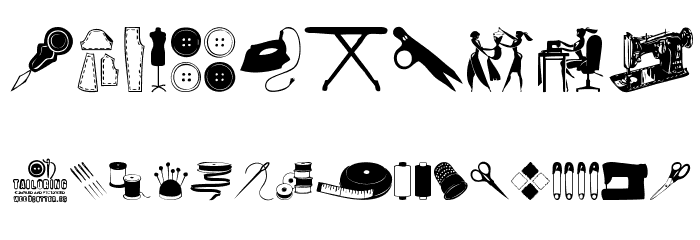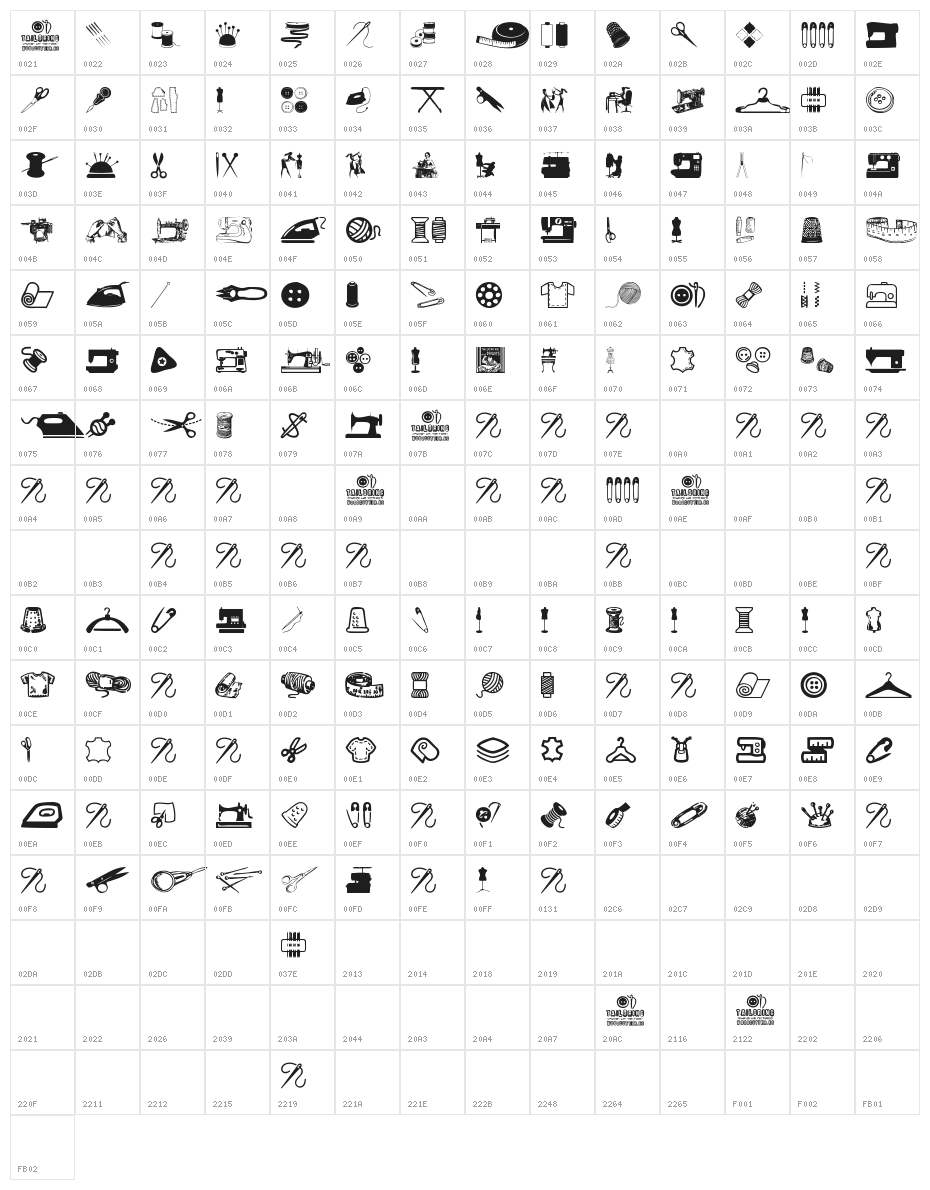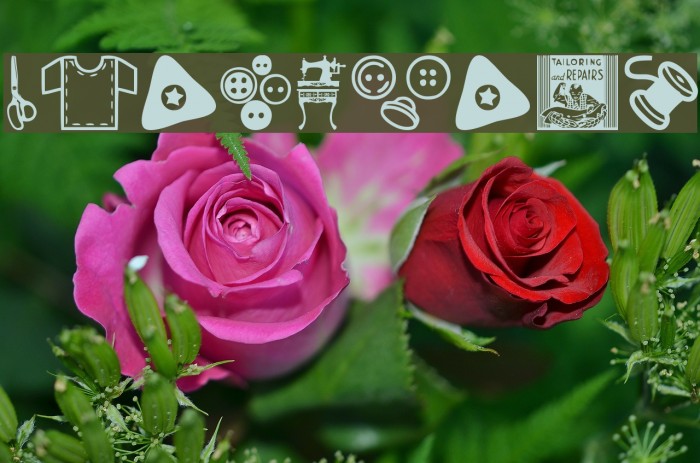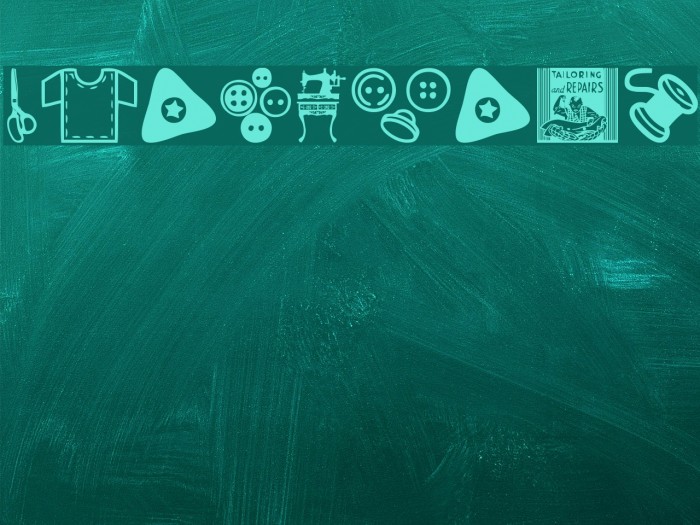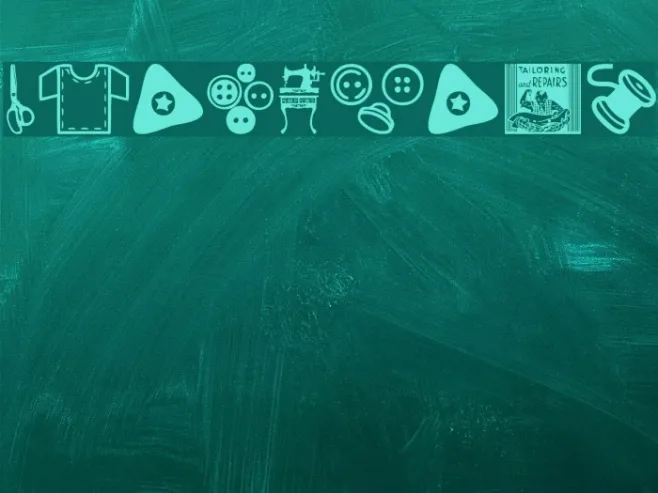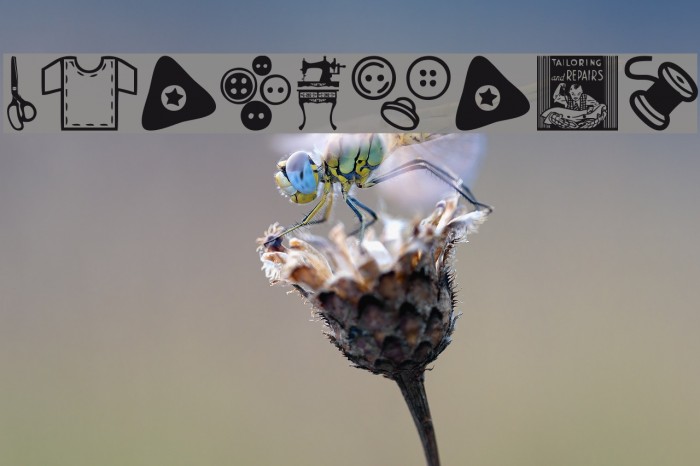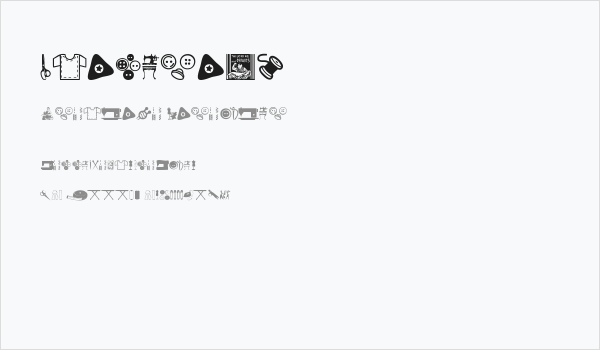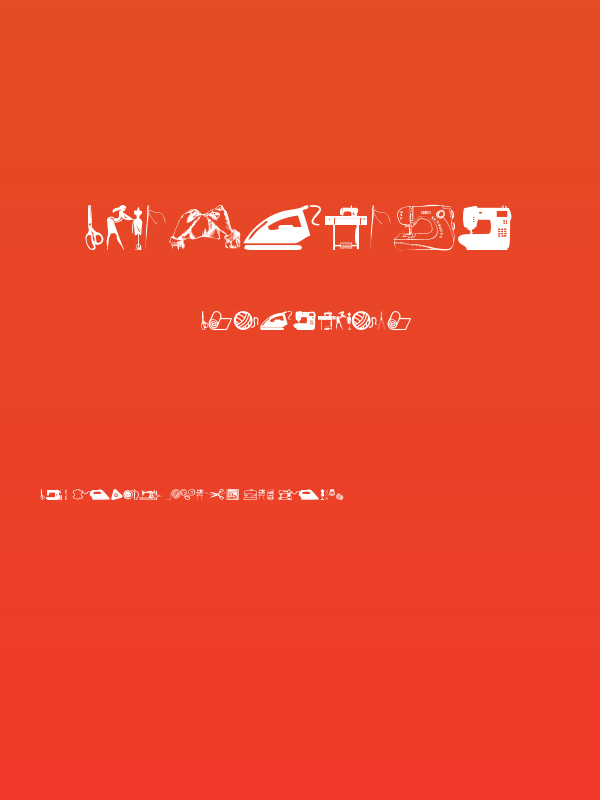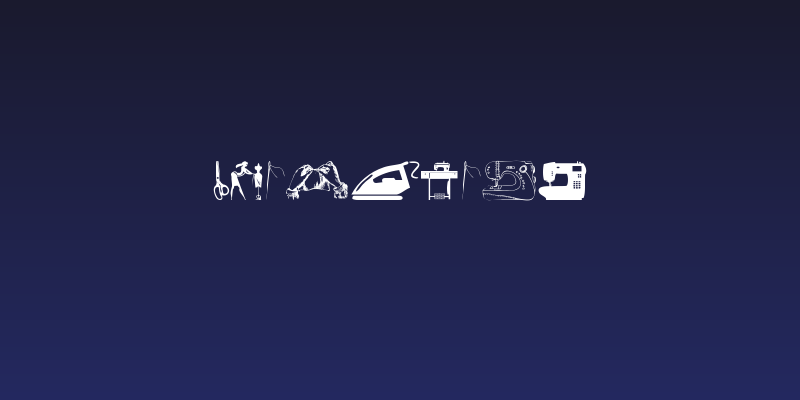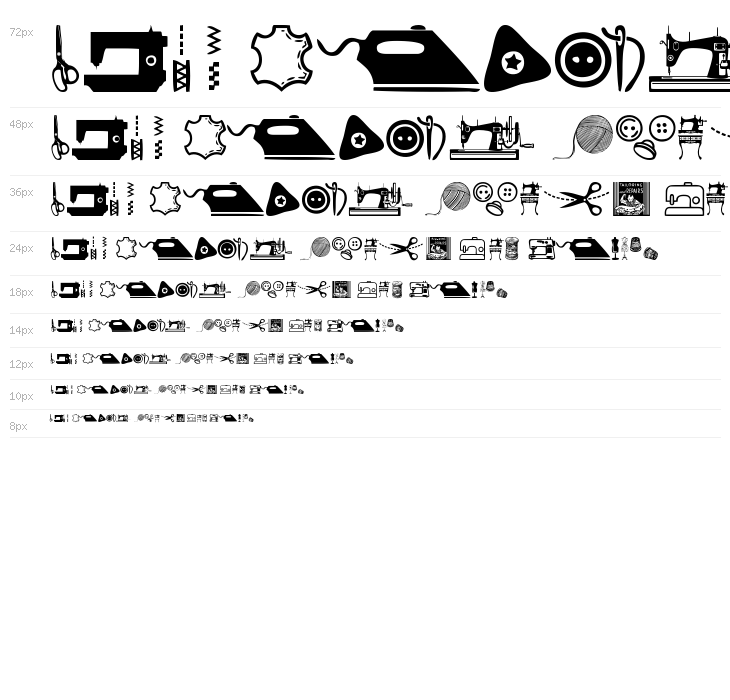
Tailoring Font
Tailoring Description
A decorative dingbat font featuring a variety of tailoring and sewing-related icons such as sewing machines, irons, mannequins, scissors, thread spools, buttons, and measuring tapes. Each character is represented by a unique pictogram relevant to garment making and textile crafts.
| Overall Style | Decorative, Thematic |
| Use Case | Logos, Themed headlines, Craft and sewing-related graphics |
| Proposed Projects | Craft blogs, sewing pattern packaging, DIY project branding, textile shop signage, educational materials for fashion design. |